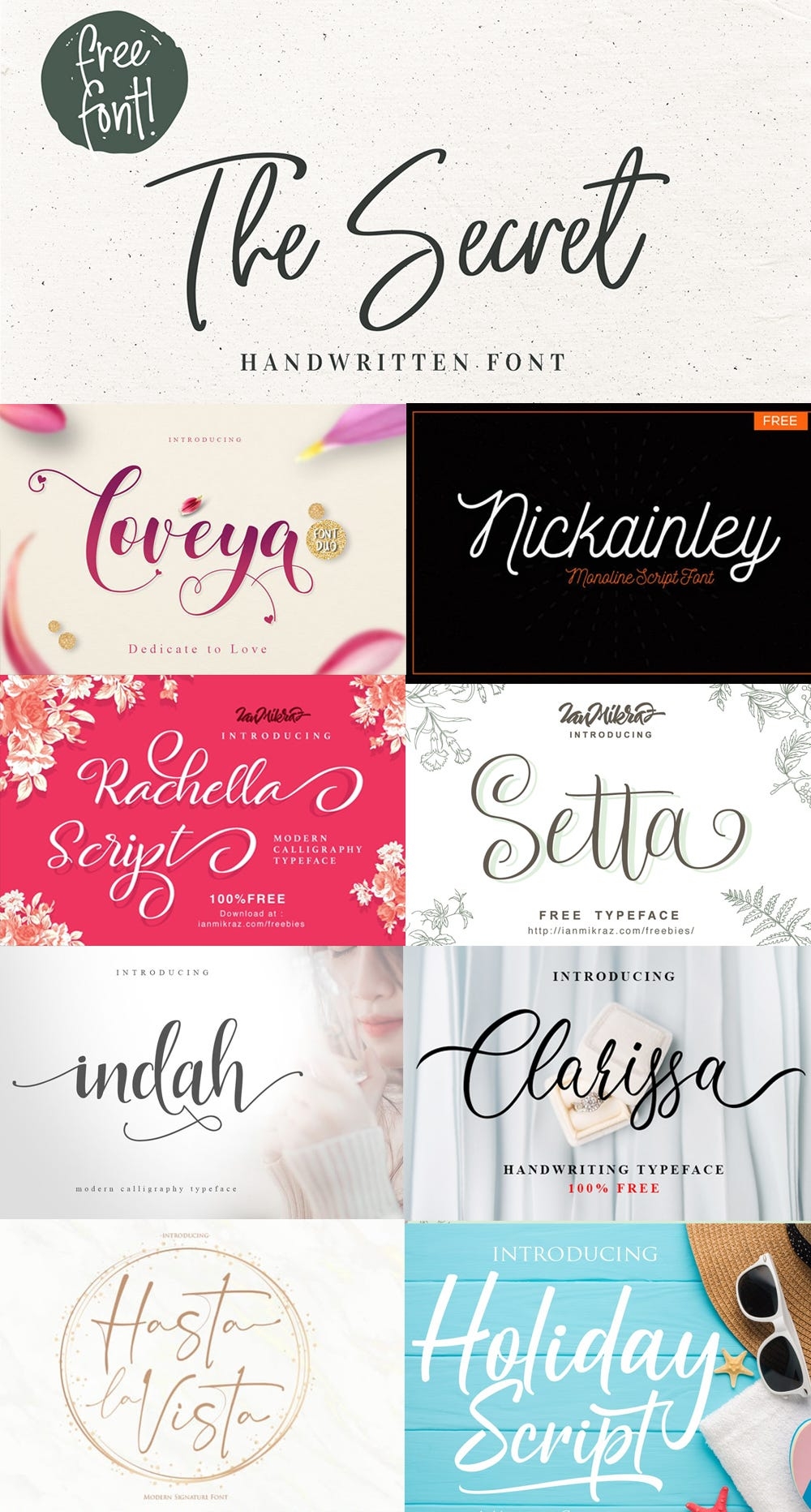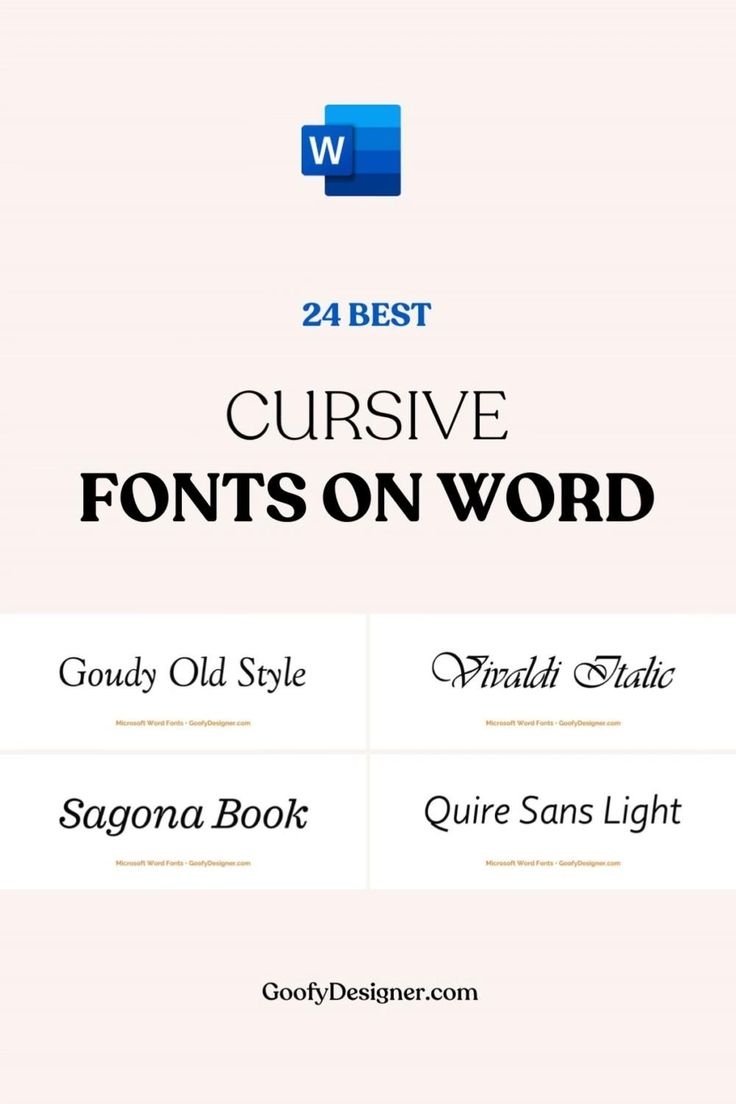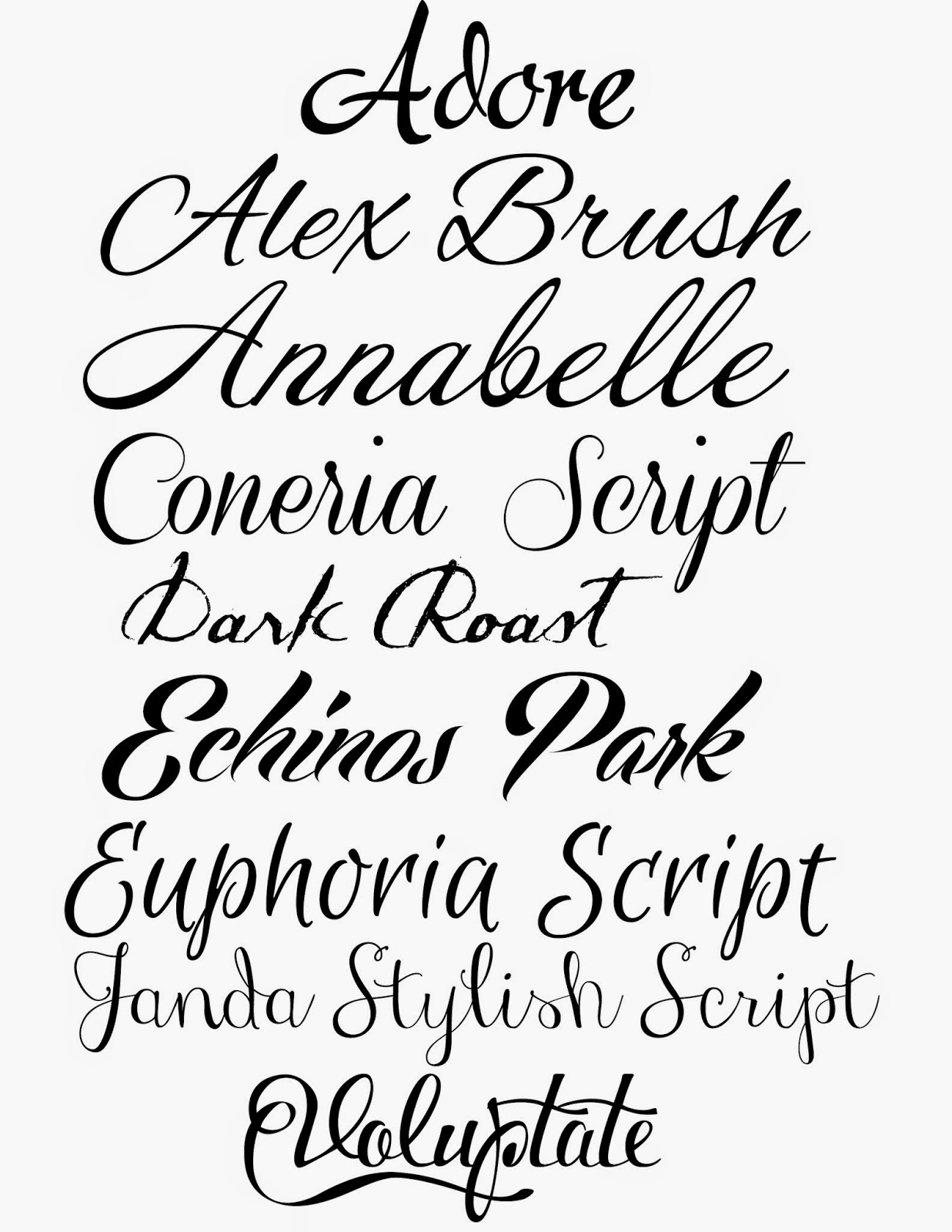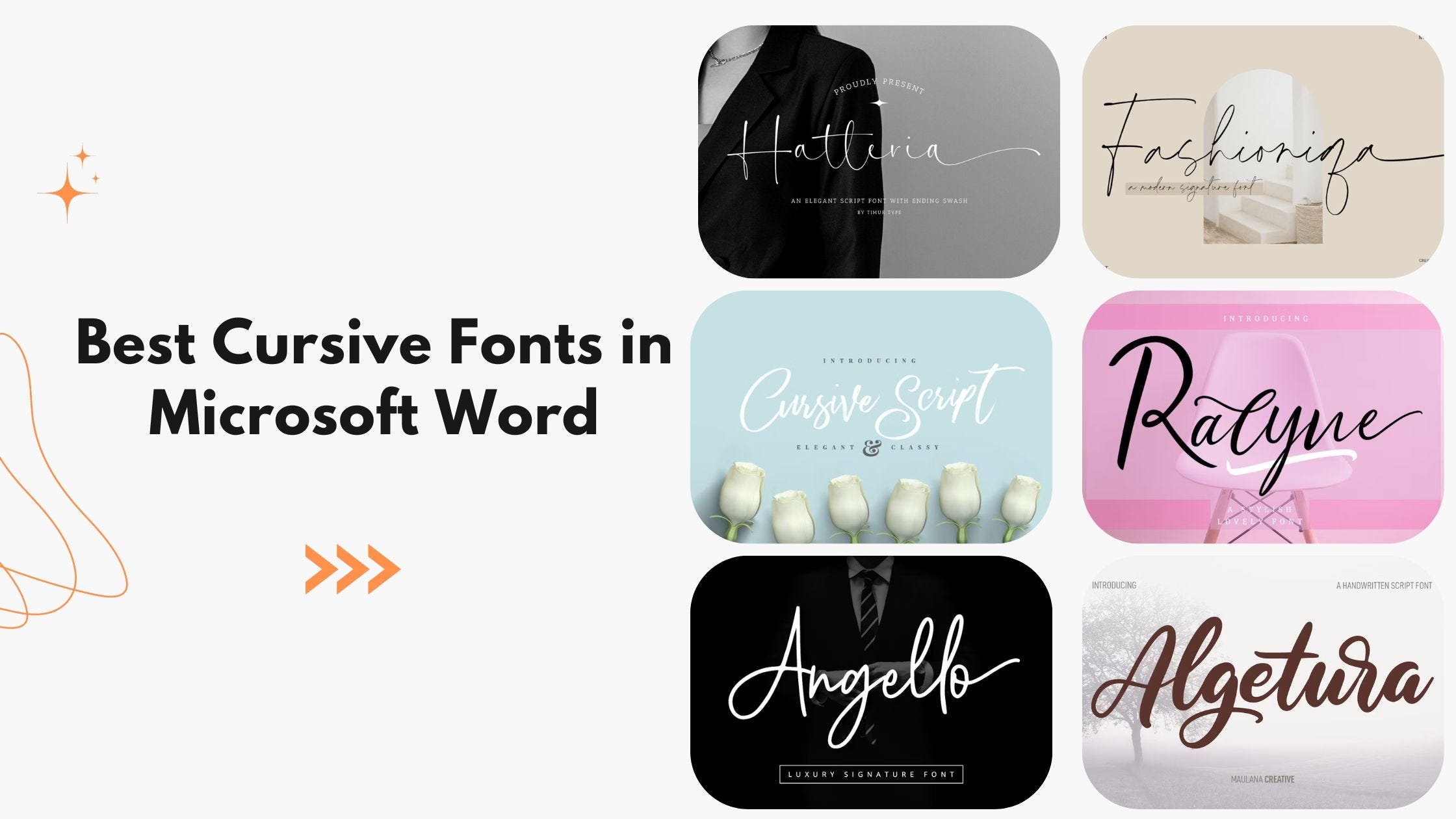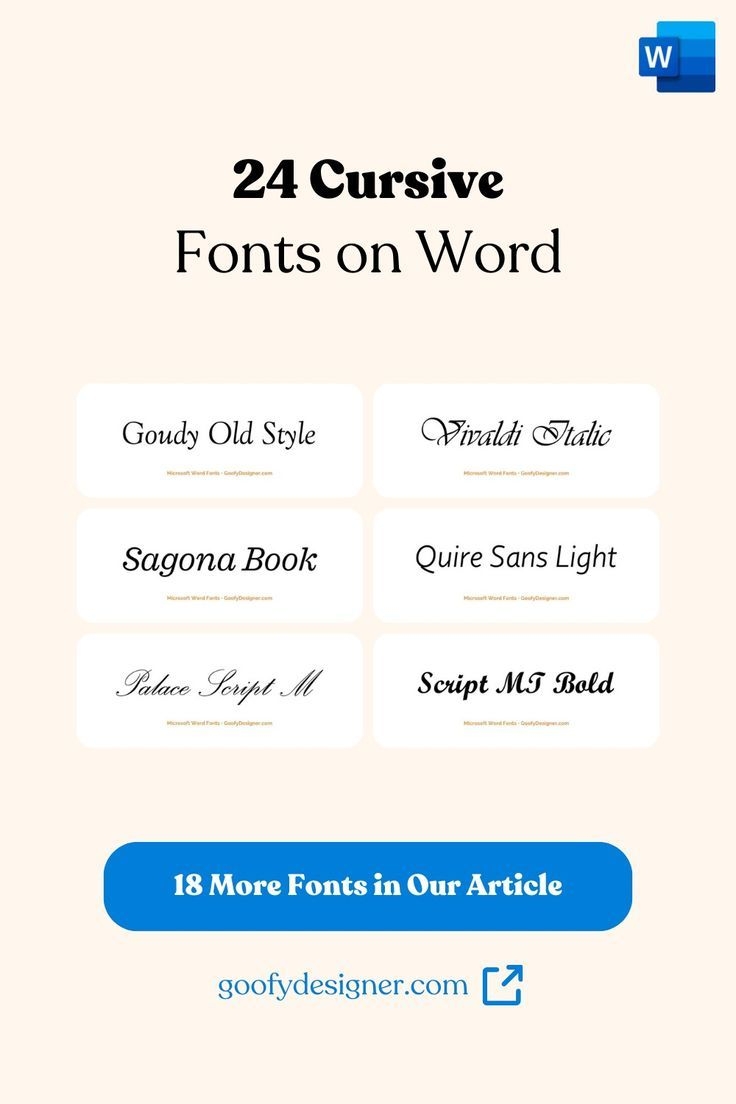
ms word cursive fonts
Are you tired of using the same old fonts in Microsoft Word for your documents? If you’re looking to add a touch of elegance and style to your text, why not try out some cursive fonts? Changing up the font can make a big difference in the overall look and feel of your document.
When it comes to ms word cursive fonts, there are plenty of options to choose from. Whether you’re looking for something fancy and ornate or simple and elegant, there’s a cursive font out there for you. Adding a cursive font to your document can help to give it a more personal and creative touch.
One popular cursive font option in Microsoft Word is “Brush Script.” This font has a casual and flowing feel to it, making it perfect for adding a touch of personality to your text. Another popular choice is “Lucida Handwriting,” which has a more formal and elegant look.
If you’re looking to make a statement with your text, why not try out “French Script”? This cursive font has a sophisticated and classic feel to it, perfect for adding a touch of elegance to your documents. Experimenting with different cursive fonts can help you find the perfect one to suit your style and the tone of your document.
In conclusion, adding cursive fonts to your Microsoft Word documents can help to make them more visually appealing and engaging. Whether you’re looking for something fancy and ornate or simple and elegant, there’s a cursive font out there for you. So why not give it a try and see the difference it can make in your next project?